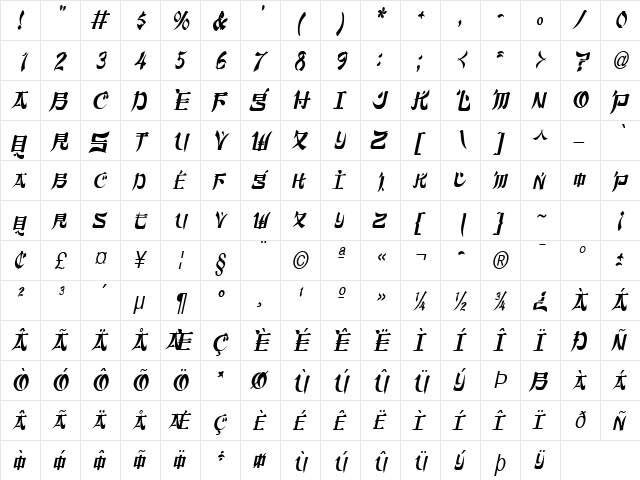
Orient2-Condensed Italic Font Preview
Design Context for Orient2-Condensed Typeface
Orient2-Condensed is a composed and adaptable typeface that performs quietly and consistently across a wide range of design contexts. The dynamic lean of this cut emphasises speed and emphasis in any layout. The condensed width makes it efficient for tight spaces without sacrificing legibility.
Pro Tip: Try Orient2-Condensed for annotation and caption copy alongside an upright companion — the contrast in angle creates a dynamic but ordered typographic system.